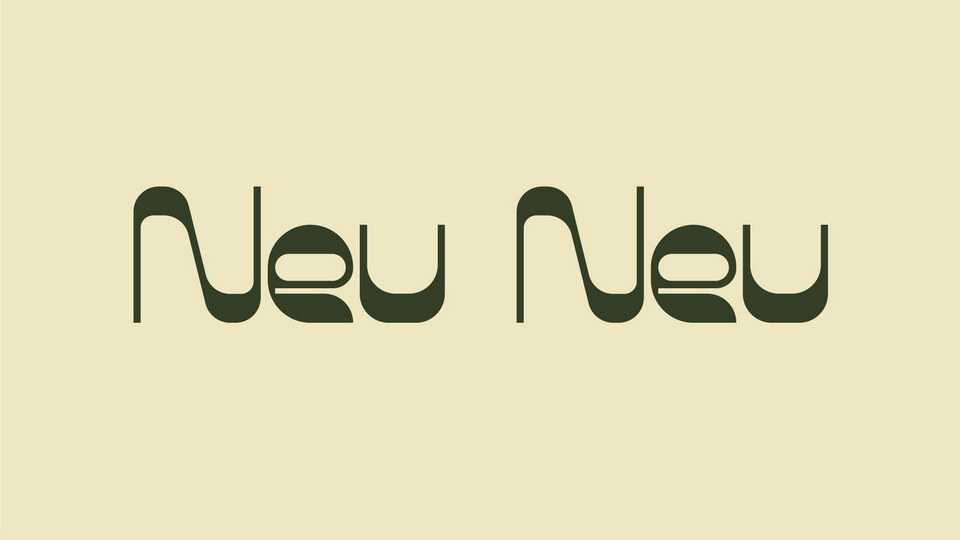
Download Neu Neu font, a reverse contrast modular typeface inspired by new wave graphical movements. Neu Neu supports special characters, numbers and Hungarian language too.
Designer: Dominik Szabó